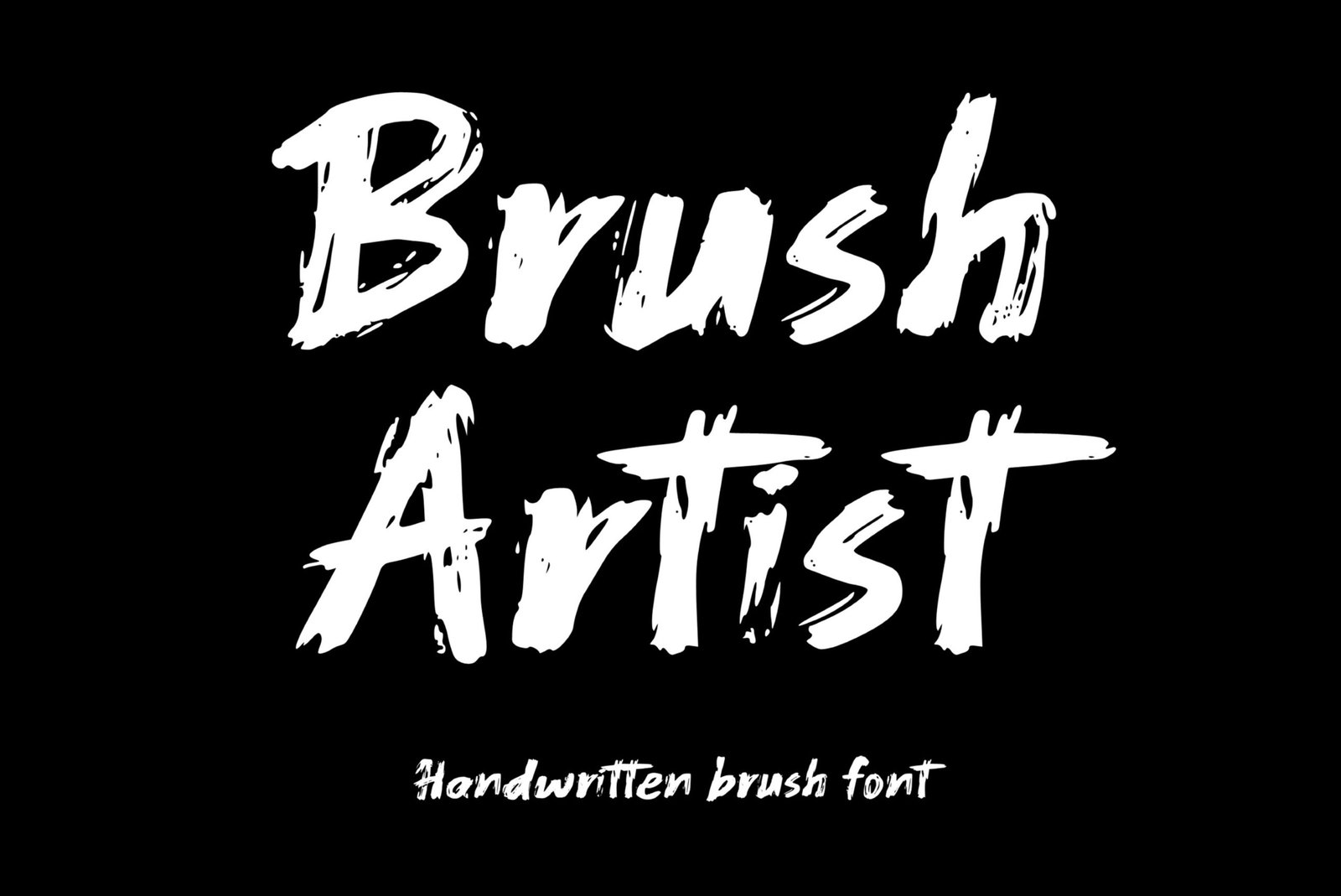
Brush Artist Font
Handwritten brush font. “Brush Artist”. Perfect for advertising and display purposes, including banners, book covers, shirts, posters, logos and much more!
Font includes all upper and lowercase letters, numbers, characters, and punctuation.